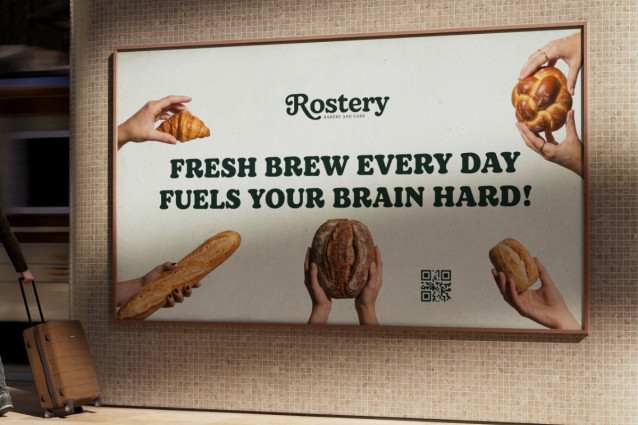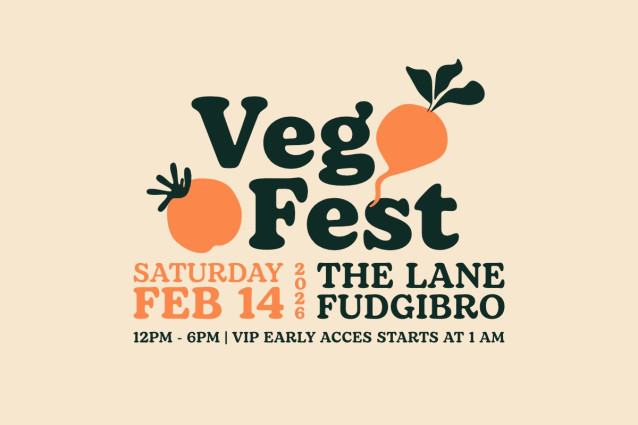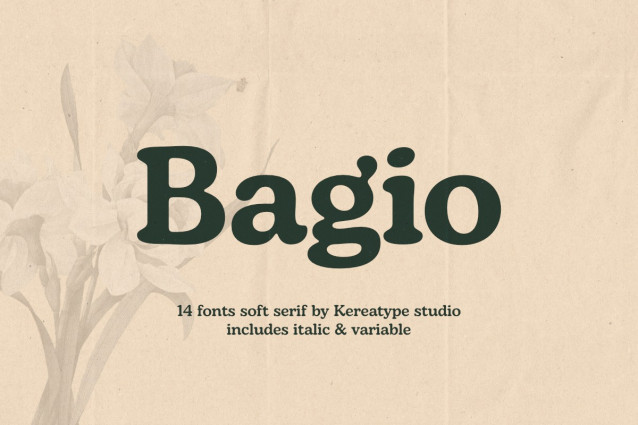
Bagio Font
Baggio Font is a sophisticated vintage serif typeface that blends timeless elegance with a warm nostalgic charm. Featuring bold curves, soft edges, and distinctive character shapes, this font creates a strong visual identity while maintaining excellent readability.
Inspired by retro editorial design and classic European typography, Baggio is perfect for branding, packaging, logos, posters, book covers, café menus, and luxury lifestyle projects. Its artistic letterforms bring personality and refinement to every composition, making it ideal for designers who want a balance between classic beauty and modern creativity.
With its stylish presence and expressive details, Baggio adds depth, character, and authenticity to any design. Whether used for bold headlines or elegant visual branding, this typeface delivers a memorable and premium aesthetic.